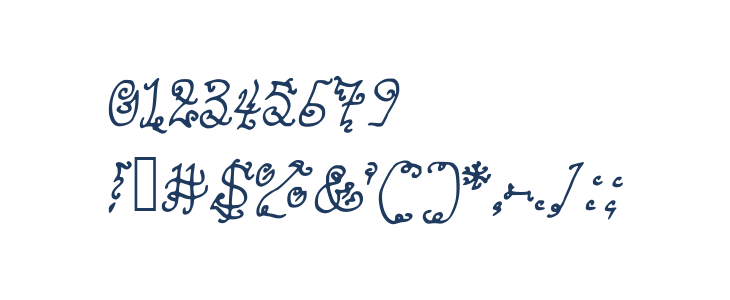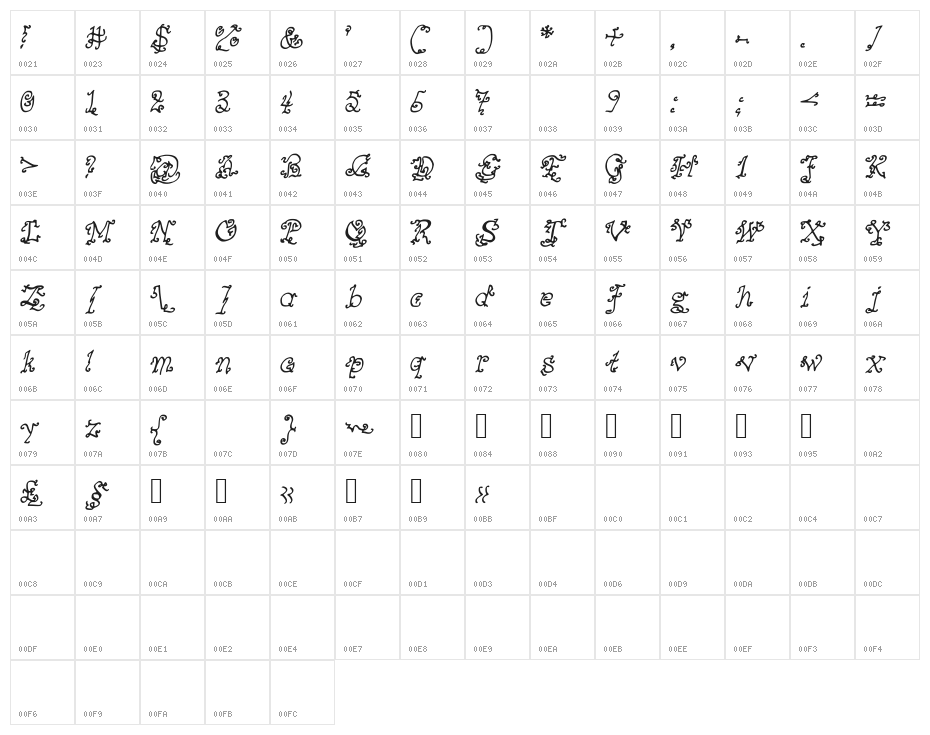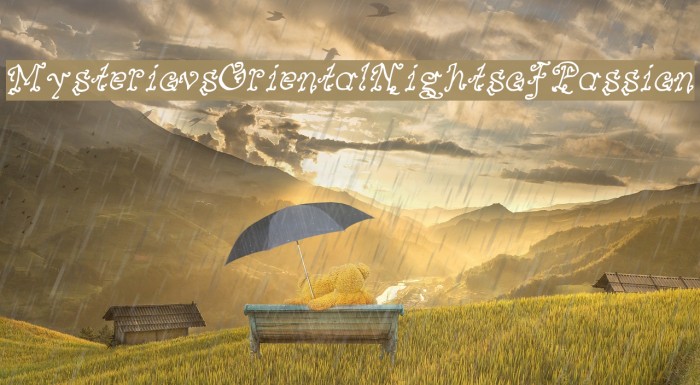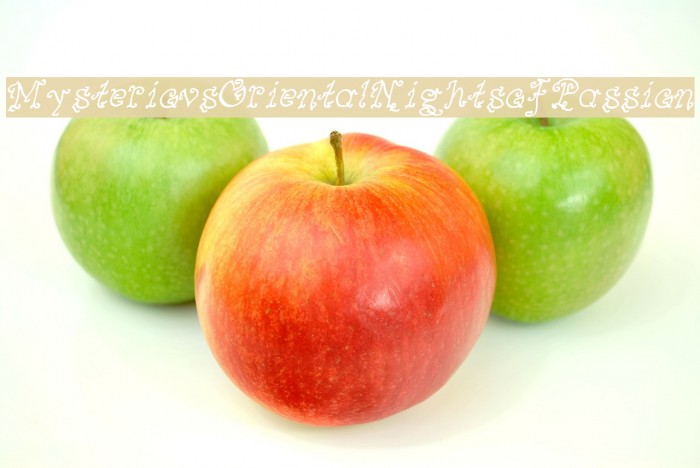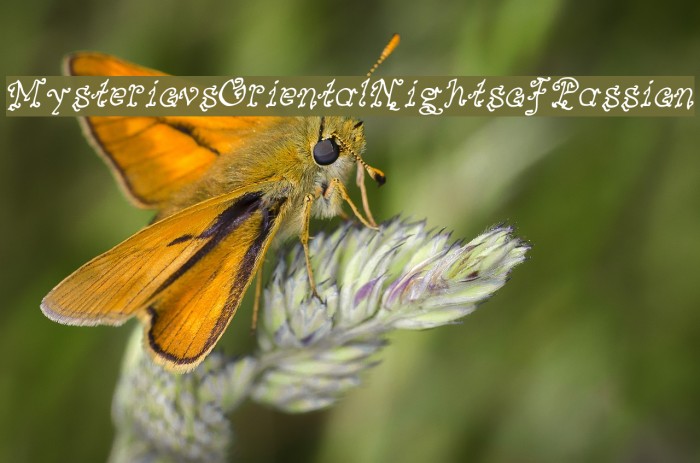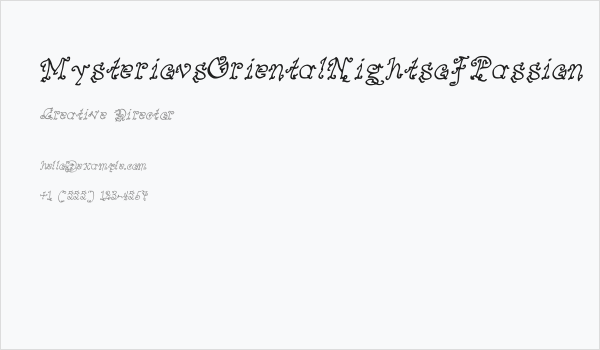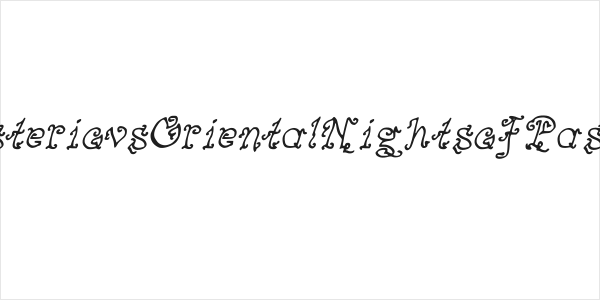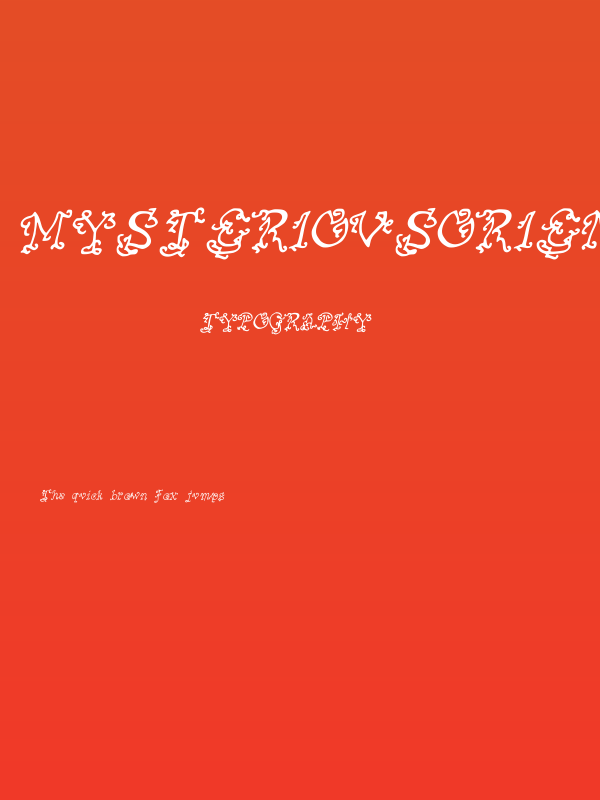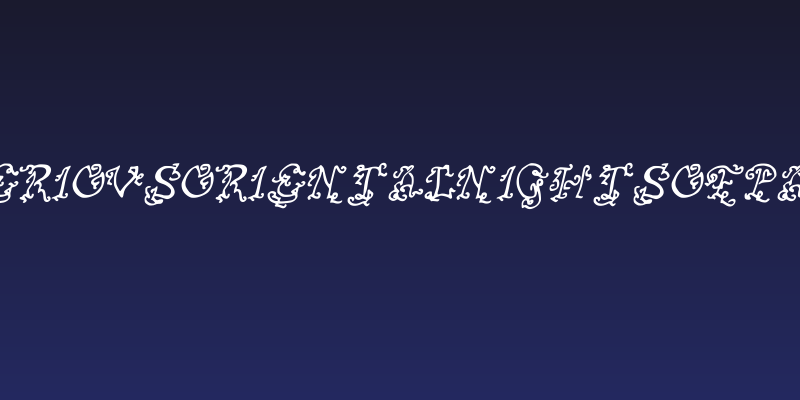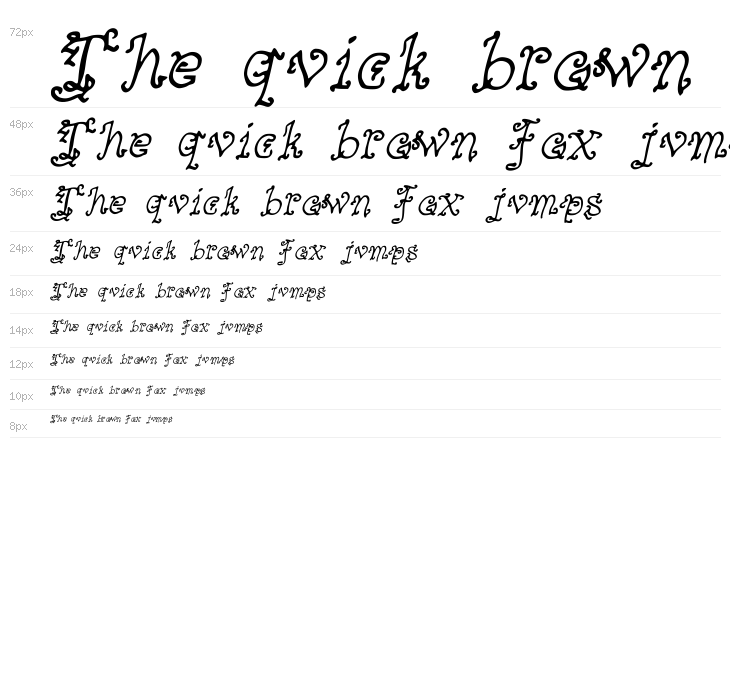
MysteriousOrientalNightsofPassion Font
MysteriousOrientalNightsofPassion Description
This font exudes an exotic and mysterious aura, characterized by its intricate and ornate design. Each letter is adorned with elaborate curls and swirls, reminiscent of traditional Eastern calligraphy. The strokes are bold and flowing, creating a sense of movement and elegance. The uppercase letters are particularly decorative, with additional embellishments that enhance their visual appeal. The lowercase letters maintain the same ornate style, ensuring consistency throughout the text. Numbers and special characters are equally detailed, making this font suitable for artistic and decorative purposes.
Use CaseHeadlines, Logos, Artistic projects
Proposed ProjectsIdeal for themed invitations, artistic posters, branding for luxury products, or any project requiring a touch of elegance and mystery.